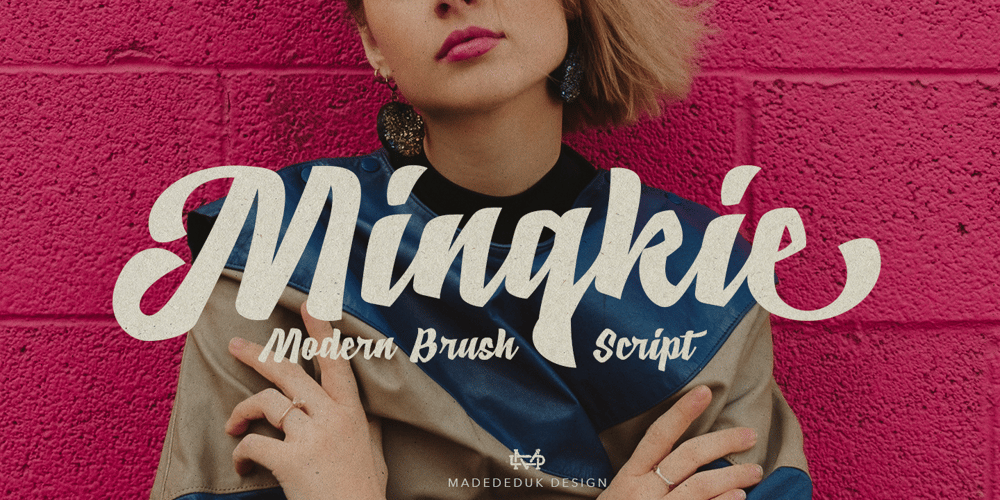
Mingkie Font Family was designed by madededuk and published by madeDeduk. Mingkie contains 1 styles and family package options. Mingkie is a modern brush script inspired from retro font style. You can explore and combine creating rhythm for comfortable reading. Retro and refined use this font for any branding, product packaging, invitation, quotes, headline, label, poster, logo etc.Feature Uppercase & Lowercase Number & Symbol International Glyphs Multilingual support Alternative Ligature Feel free to drop us a message any time and follow my shop for upcoming updatesHope you enjoy it.